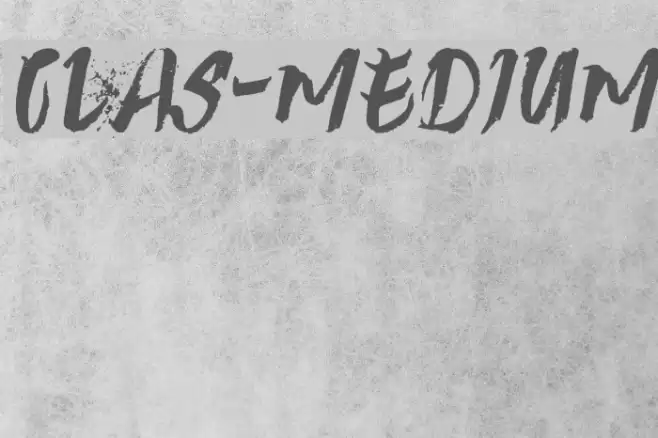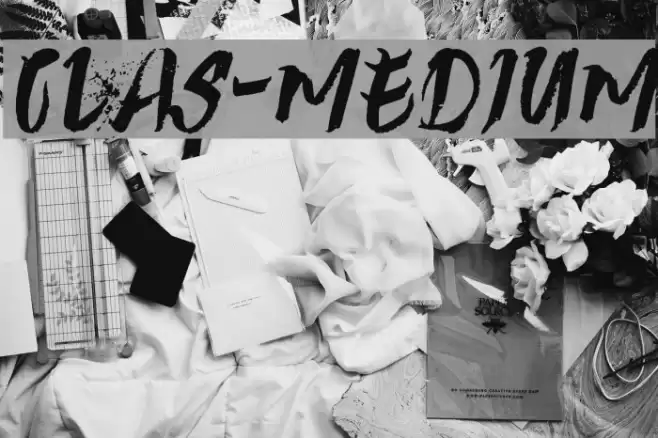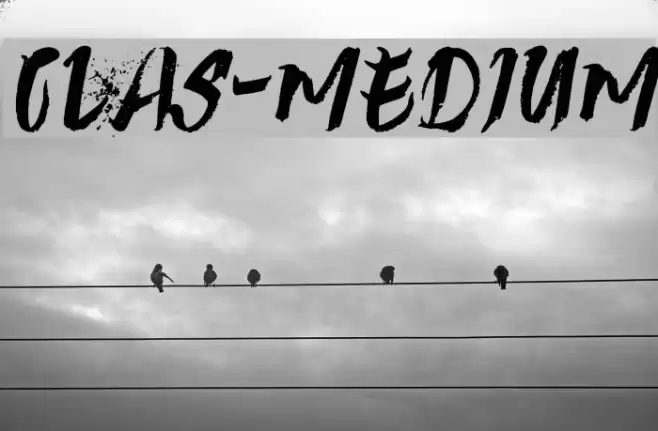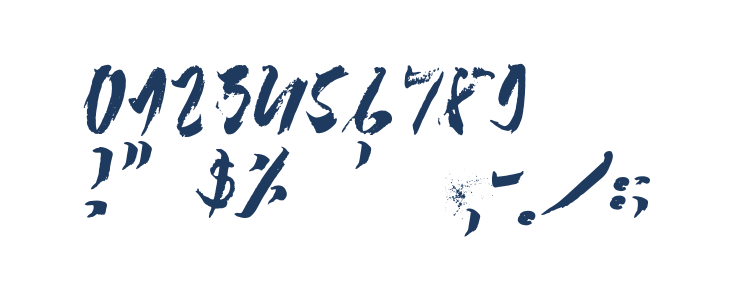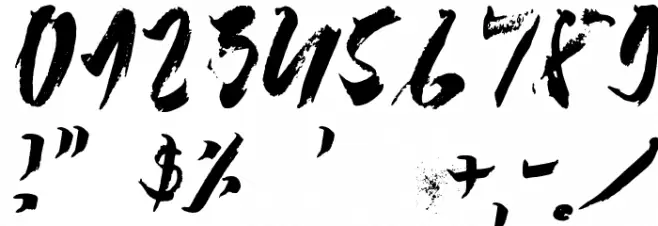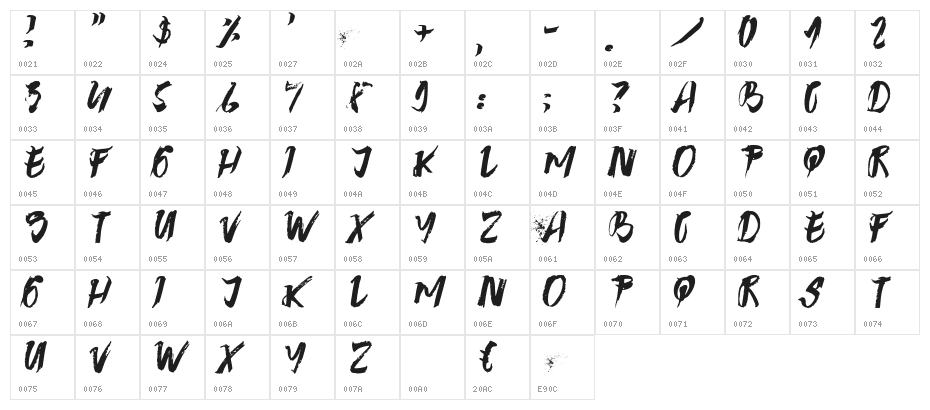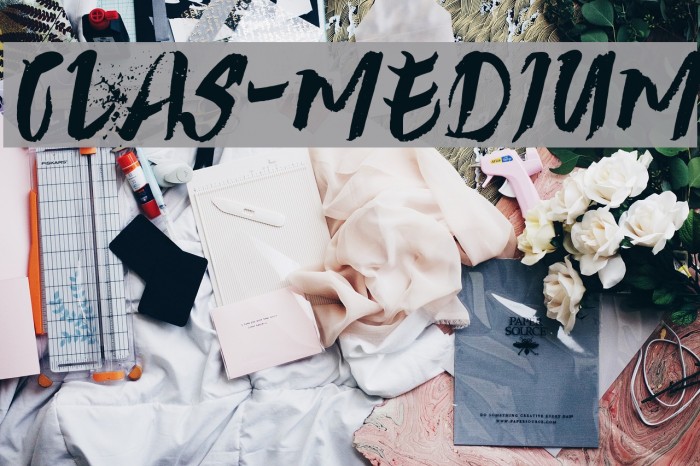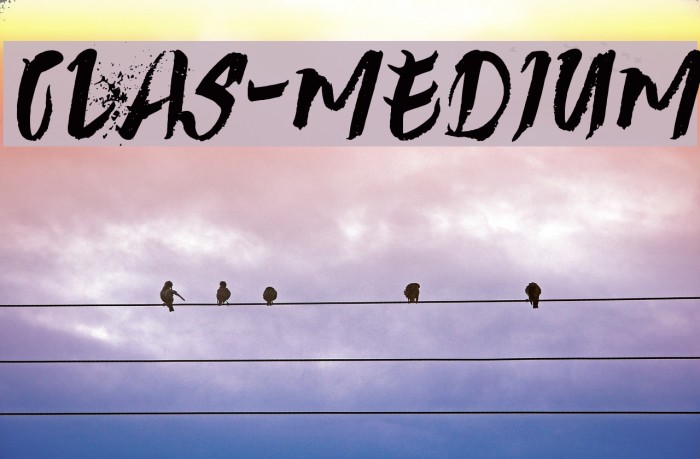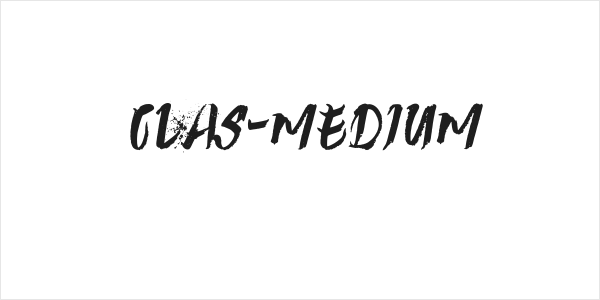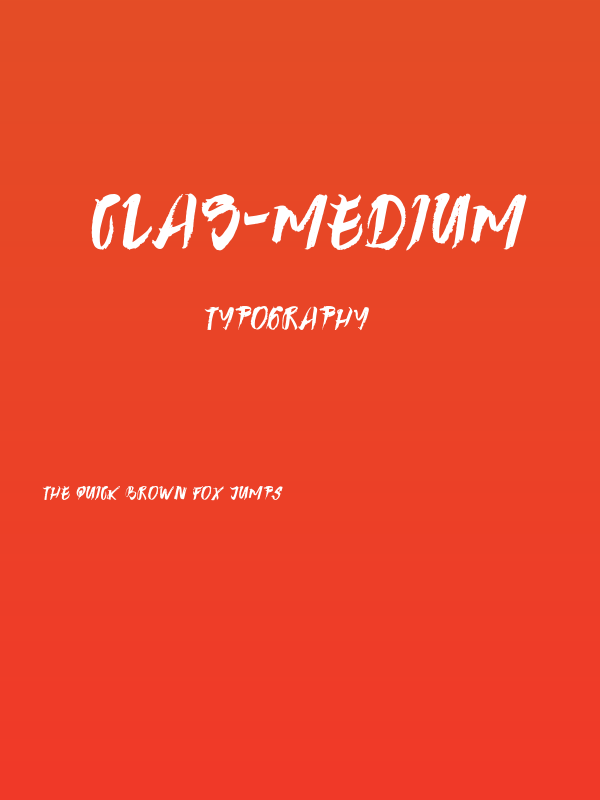
Clas-Medium Font
Clas-Medium Description
This font features a bold and dynamic brush script style, characterized by its energetic and expressive strokes. The letters have a hand-painted appearance, with varying thickness and a slightly rough texture that adds a sense of movement and spontaneity. The uppercase and lowercase letters maintain a consistent style, with some letters featuring unique flourishes and angles that enhance the overall artistic feel. The numbers and special characters are equally bold, ensuring a cohesive look across all elements. This font is ideal for projects that require a strong visual impact and a creative, artistic touch.
A bold, dynamic brush script font with expressive strokes and a hand-painted look from Uncategorized fonts.
- Proposed Projects: Ideal for branding, posters, album covers, and any project needing a bold artistic flair.